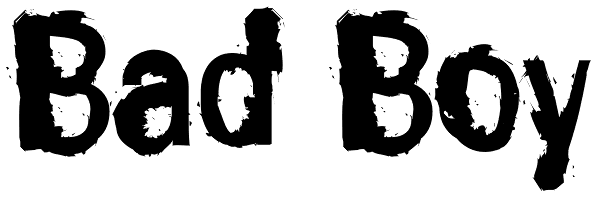
Bad Boy
If you are looking for some wild extreme grunge this is it. No holds barred this is some bad stuff. Let your imagination go there is no stopping here.
Bad Boy Font